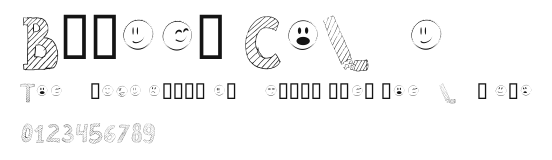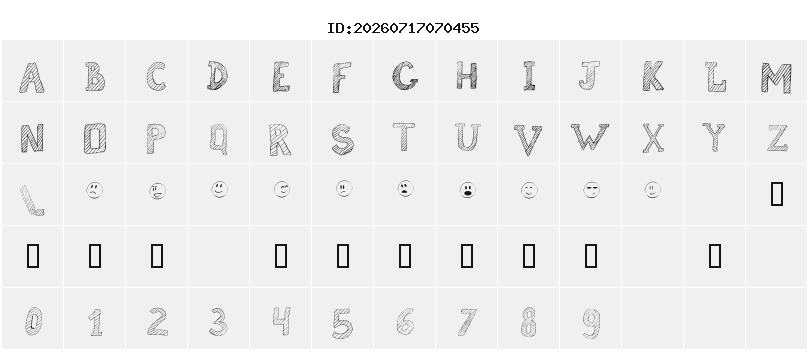
• Font Name: Broken Chalk
• Designer: Artem Shalakhin
• Description: Broken Chalk is a font by Artem Shalakhin, designed by Artem Shalakhin in 2016.
Broken Chalk.ttf is a modern, elegant sans-serif font designed for ultimate readability and visual harmony. Perfect for branding, headlines, web design, and print materials.